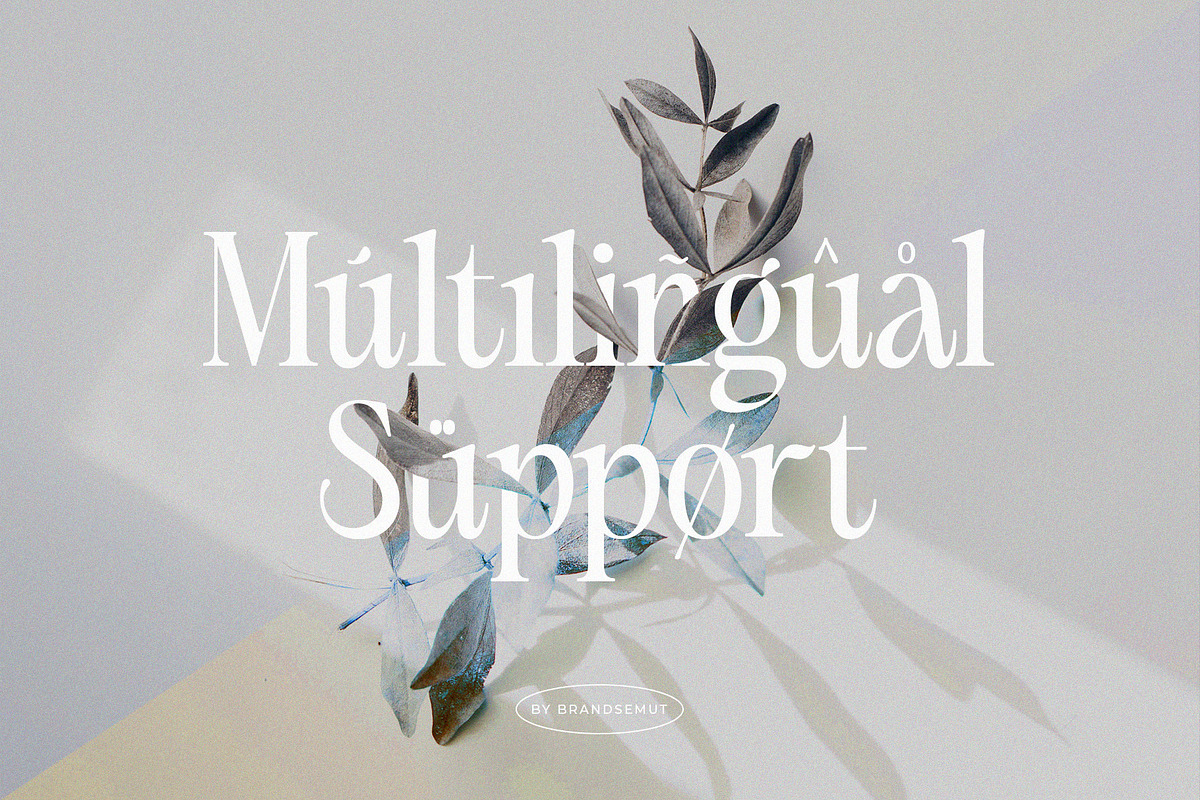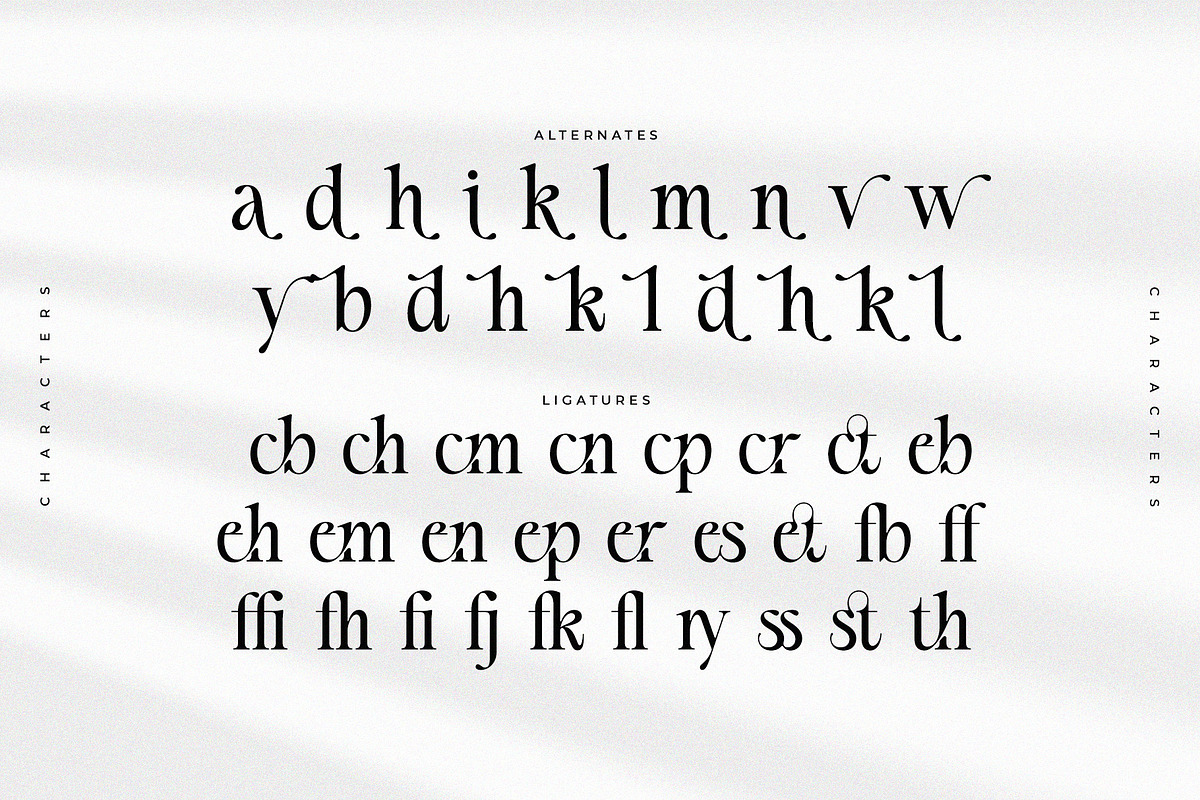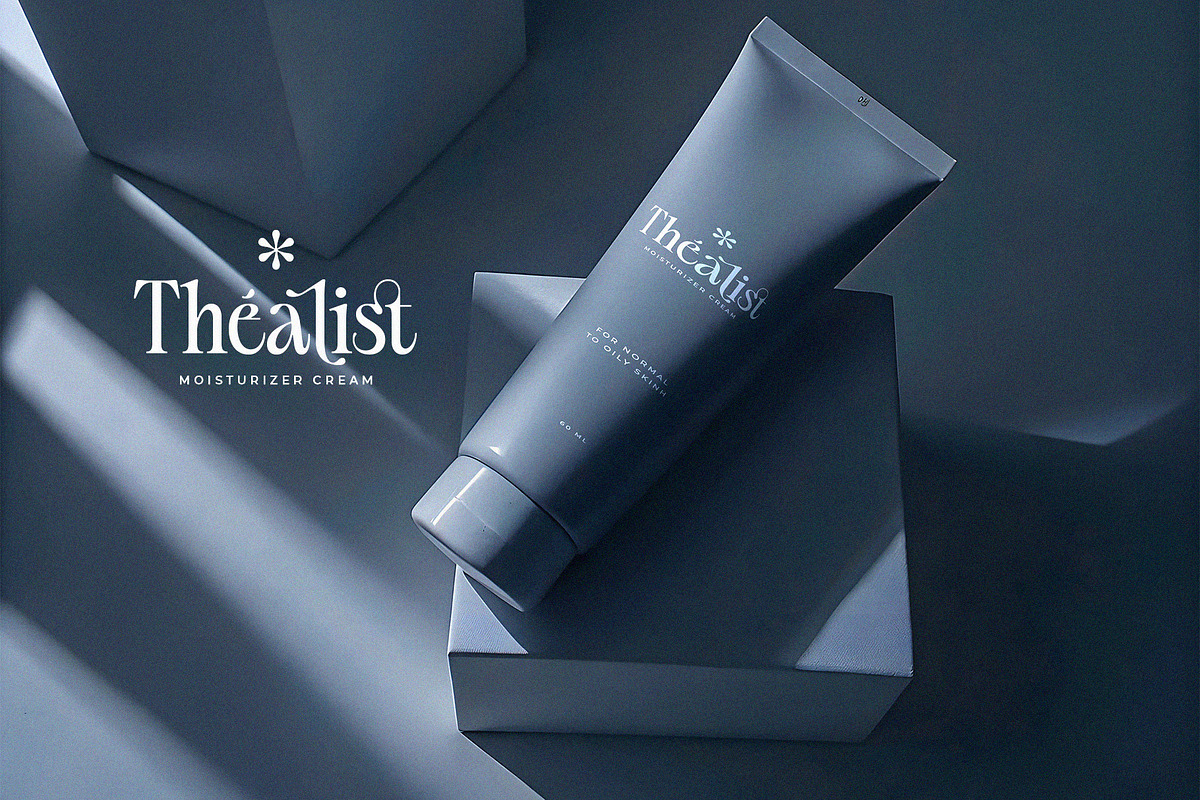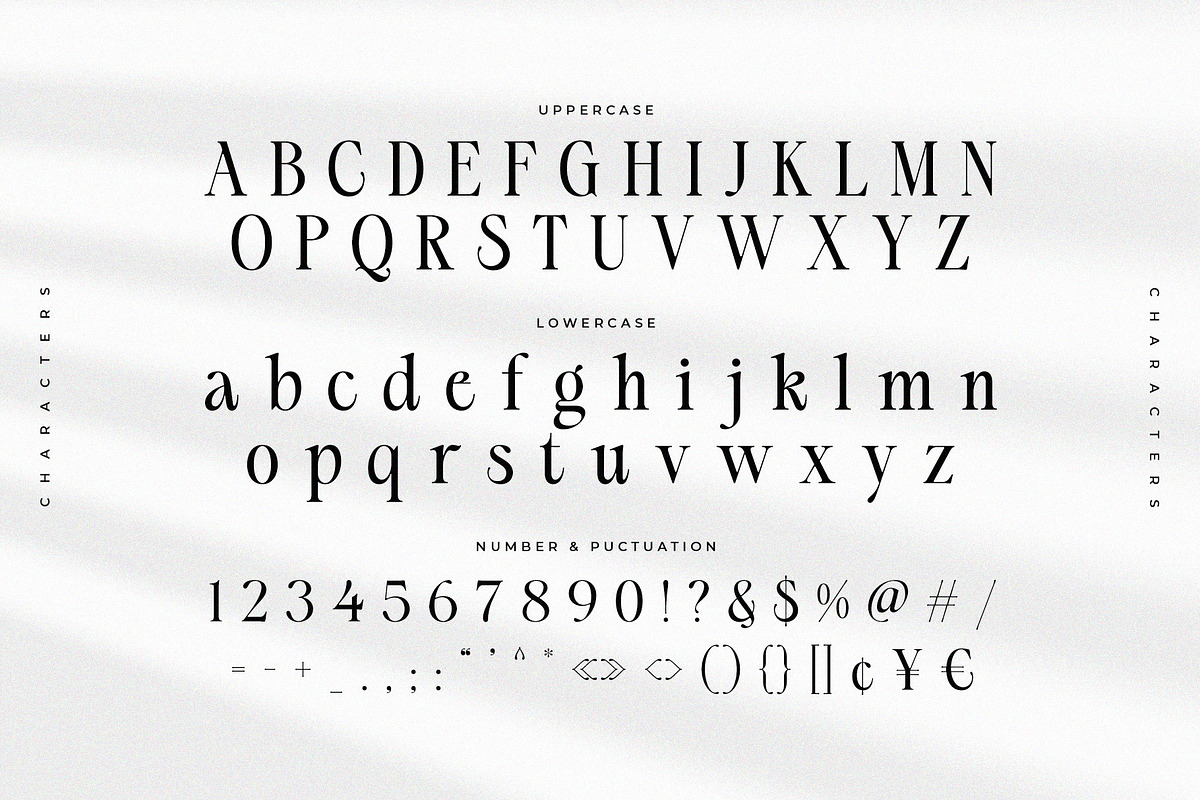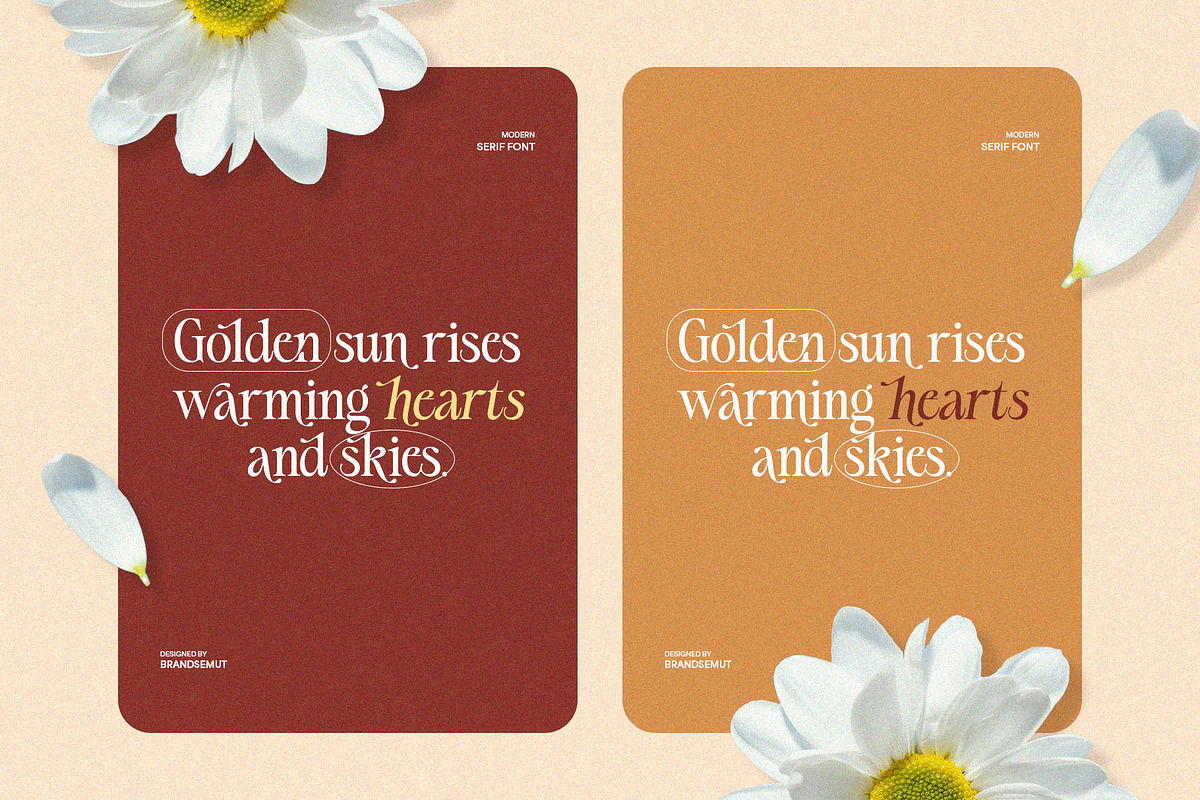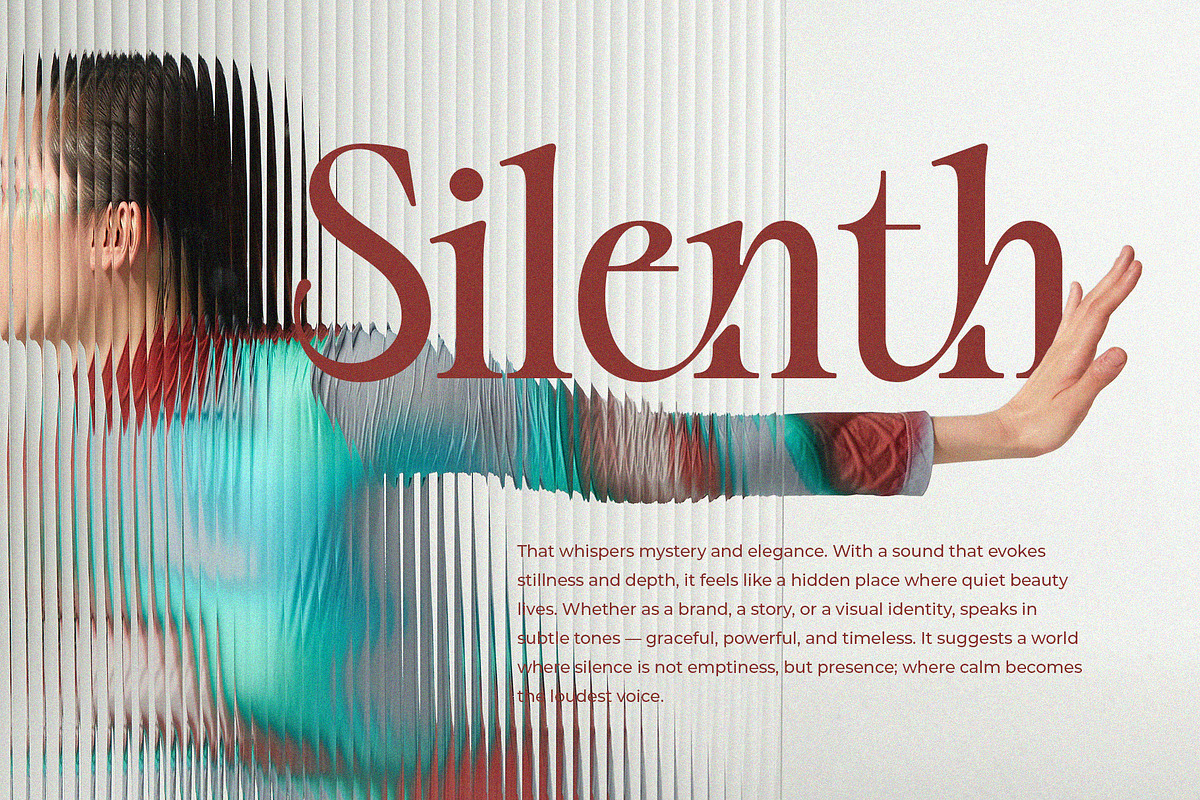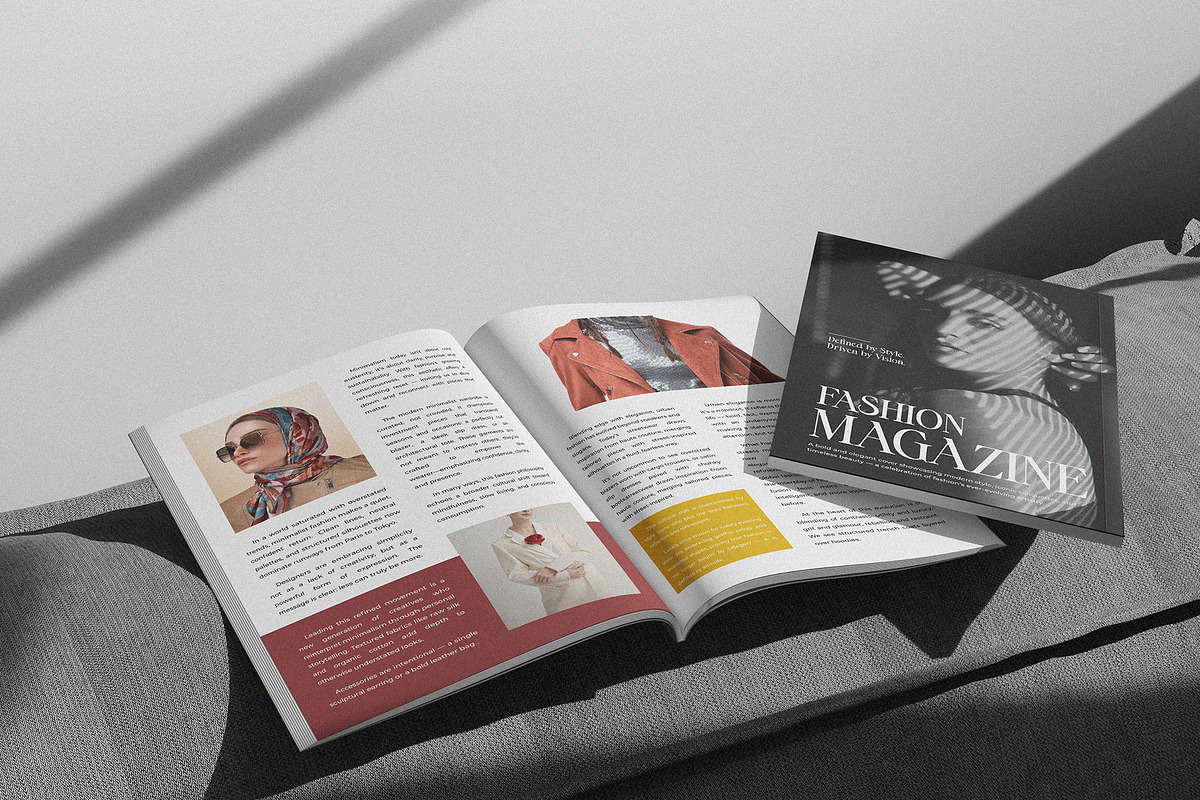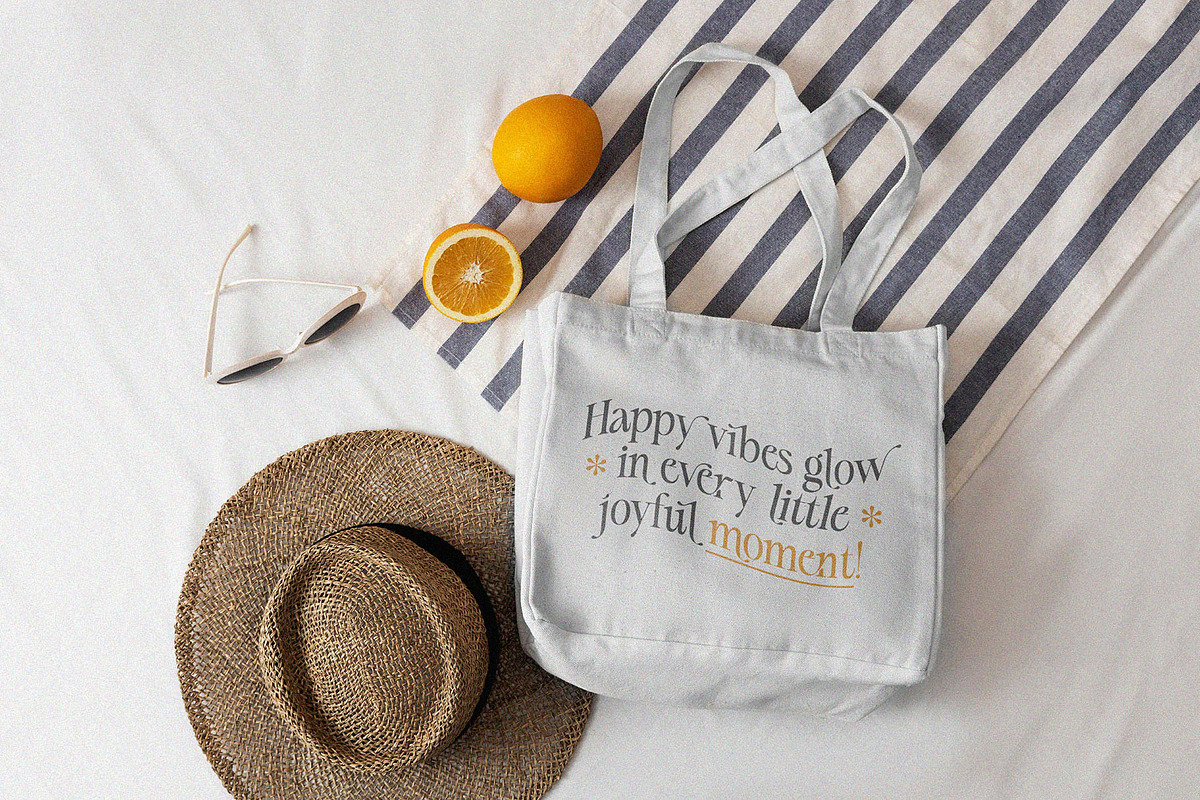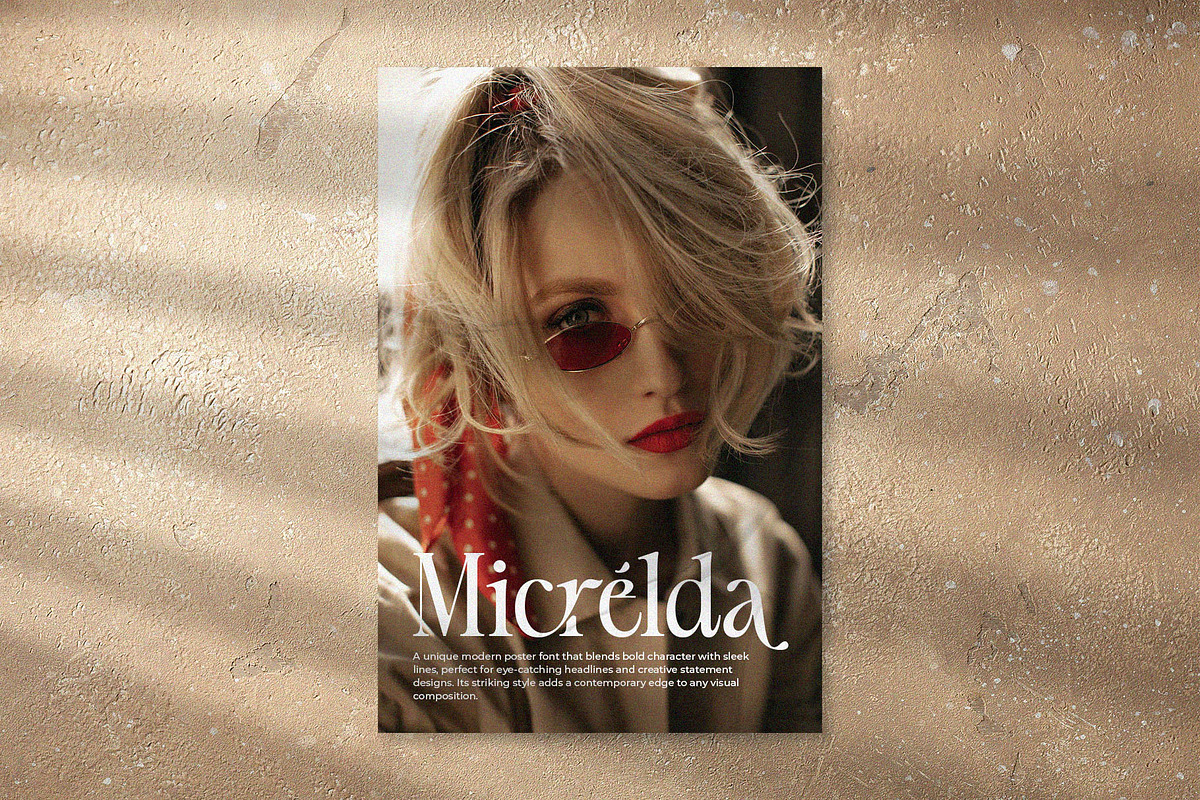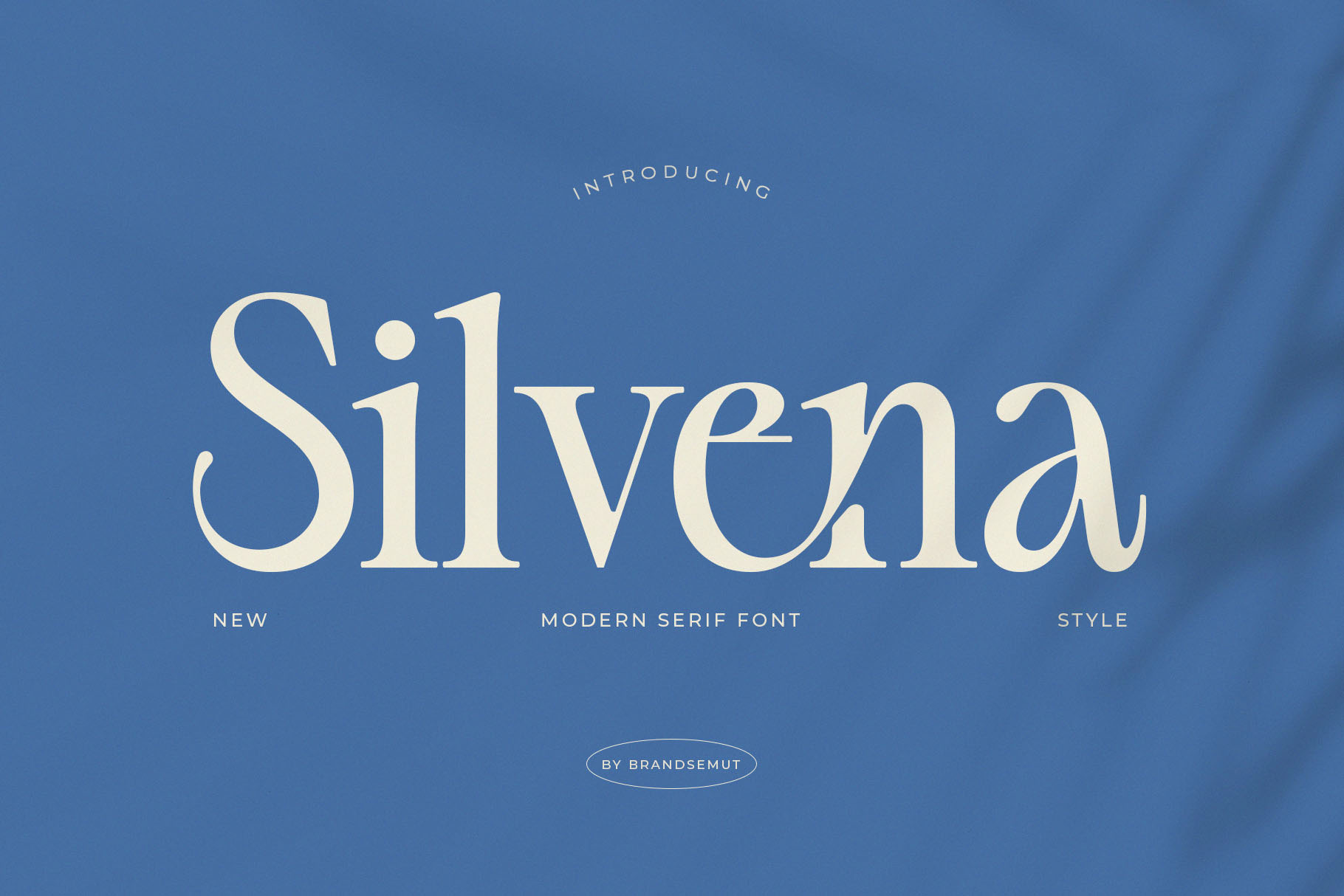
Silvena – Modern Elegant Serif Font
Silvena is a modern serif font with a clean, elegant, and timeless design. Its stylish curves and sharp details bring a perfect balance between classic sophistication and contemporary aesthetics. Crafted with precision, Silvena is designed to enhance branding, editorial layouts, and creative projects that require a touch of professionalism and elegance.
This versatile serif font works beautifully in both print and digital formats, making it an essential typeface for designers, entrepreneurs, and creatives who want to elevate their visual identity. Whether used for branding, logos, magazine headlines, packaging, or web design, Silvena delivers a refined and luxurious typographic style.
🎯 Perfect For:
- Branding & Identity – Ideal for logos, business cards, and professional branding.
- Editorial & Print Design – Perfect for magazines, book covers, and modern layouts.
- Packaging Design – Enhance product packaging with a luxurious and stylish look.
- Creative Content – Social media graphics, posters, flyers, and advertising materials.
🌟 Why Choose Silvena?
- Elegant & Modern Style – A serif font that blends timeless beauty with a contemporary edge.
- Versatility – Works across luxury, fashion, editorial, and corporate designs.
- Professional Quality – Carefully designed for maximum readability and elegance.
Silvena is more than just a serif font—it’s a modern classic that elevates your design projects with style and sophistication.